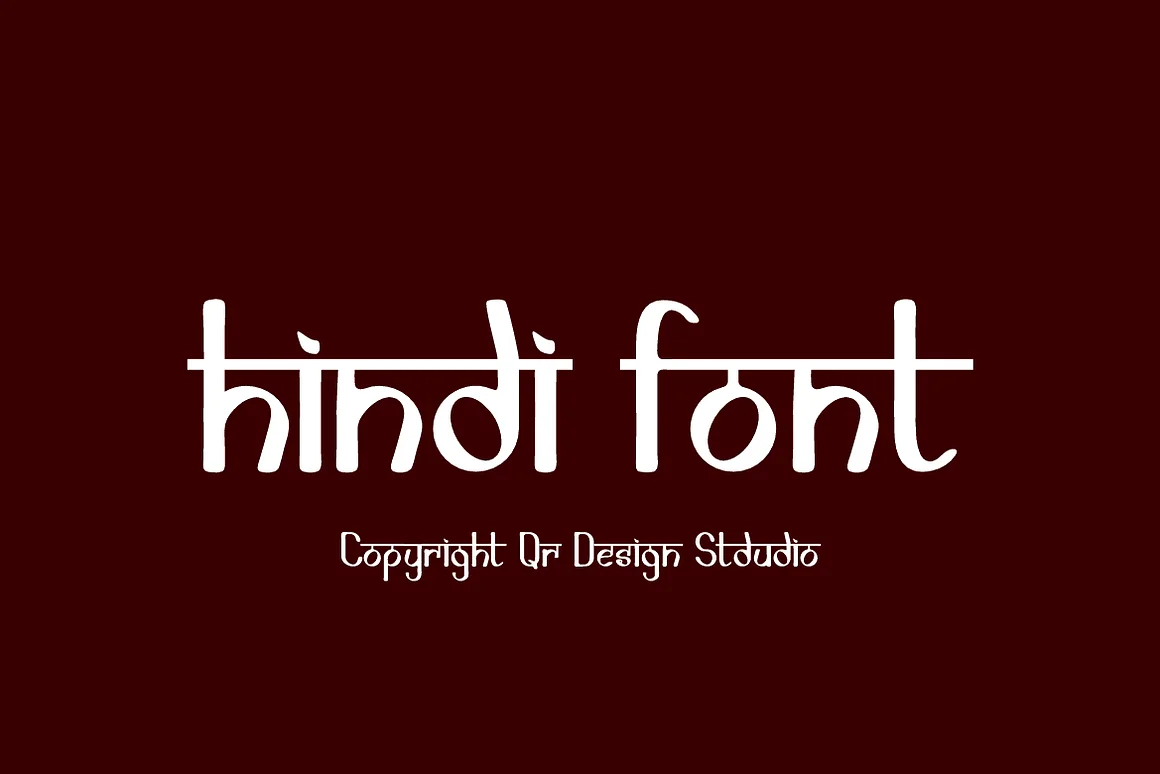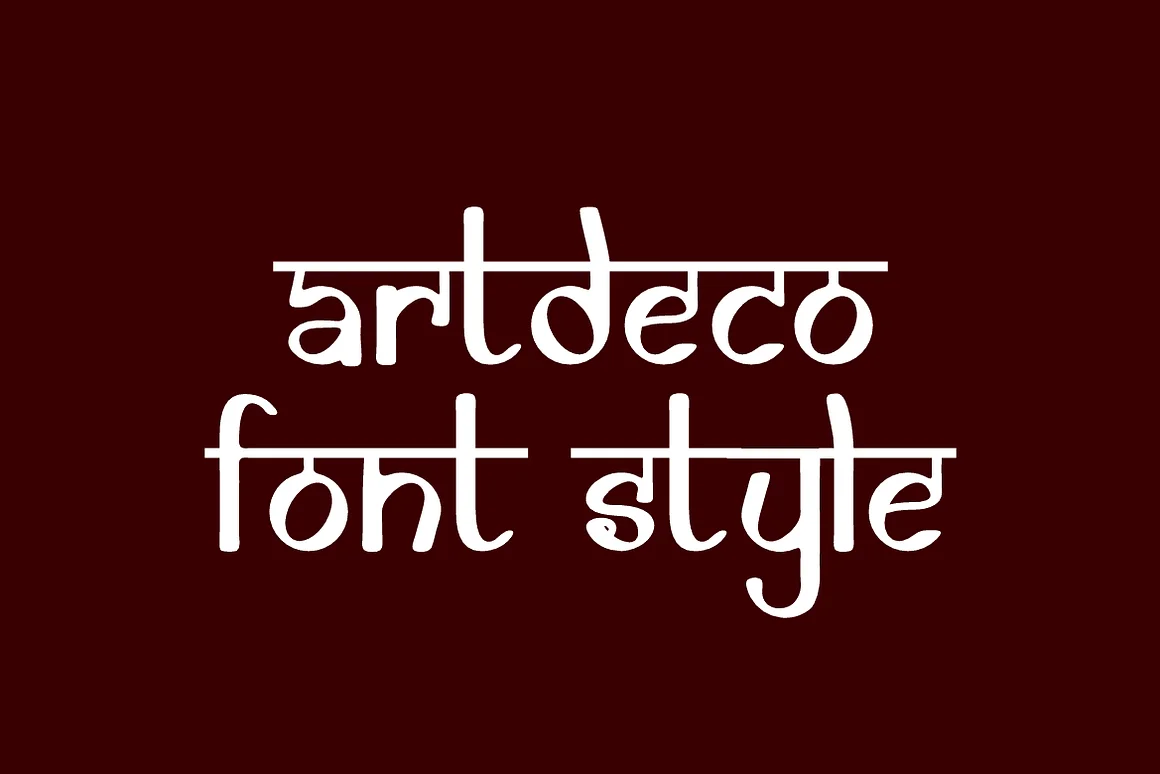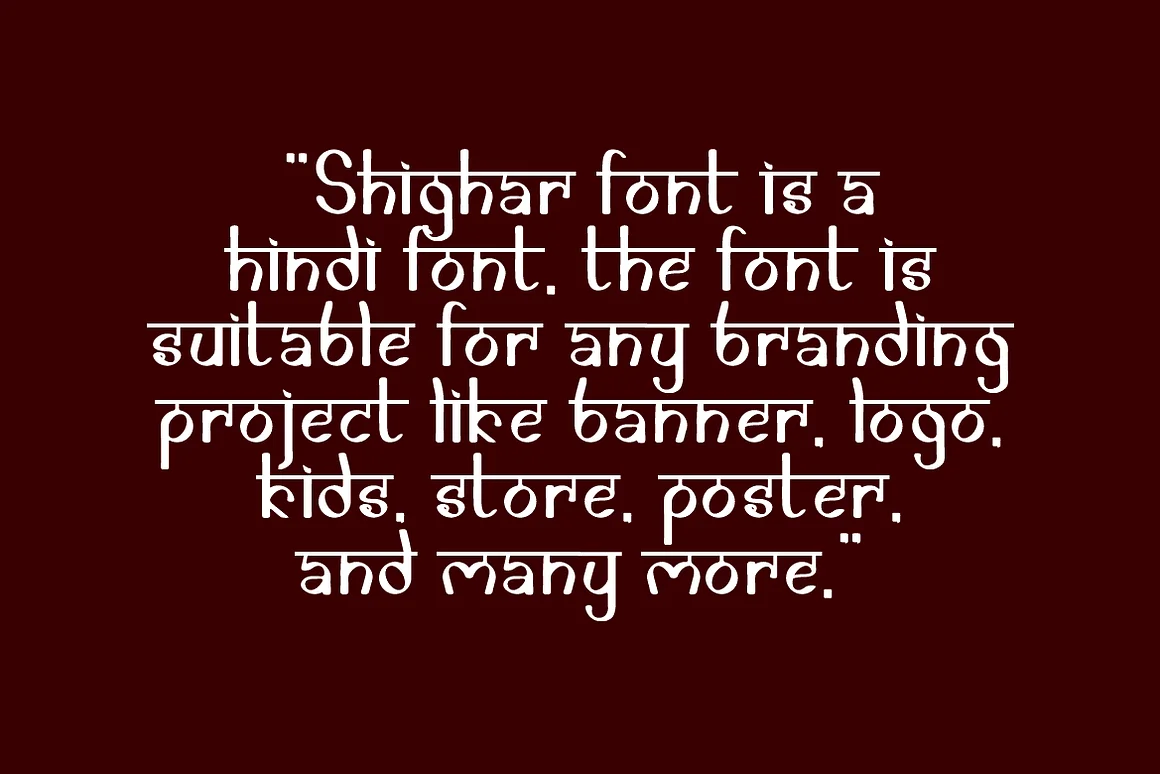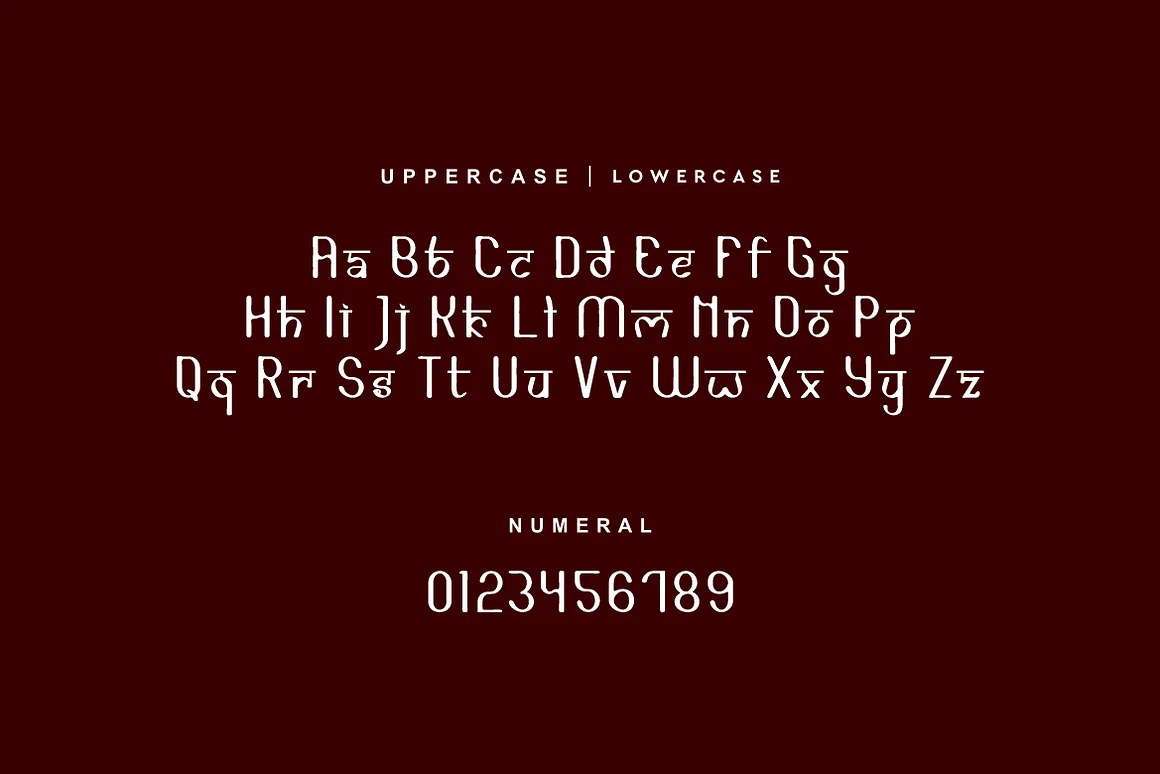
Shighar - Artdeco & Hindi Font
There is a particular satisfaction in finding a typeface that delivers controlled contrast that rewards close inspection without compromise. Shighar - Artdeco & Hindi consistently provides it. The typeface brings a versatile sensibility to a broad range of creative disciplines, with refined proportions and careful stroke modulation that holds up whether the work is print-first or screen-first.
In practice, Shighar - Artdeco & Hindi proves particularly effective for advertising campaigns, environmental graphics, annual reports, signage systems, packaging design. Designers reaching for it find that the type decisions feel resolved rather than laboured — a useful quality when client timelines are tight.
The range of applications extends to editorial layouts, poster creation, logo design, web design. That breadth is deliberate: the proportions and spacing were stress-tested across a wide range of mock briefs before the typeface was finalised.
Pairing Shighar - Artdeco & Hindi with a contrasting serif or a neutral grotesque gives mixed-format layouts a clear visual grammar without requiring constant size adjustments to establish hierarchy.
UX designers establishing typographic systems for digital products find Shighar - Artdeco & Hindi a reliable choice for projects that demand both personality and restraint. The design avoids the self-conscious quirkiness that dates quickly, settling instead for considered distinctiveness that holds up over time.